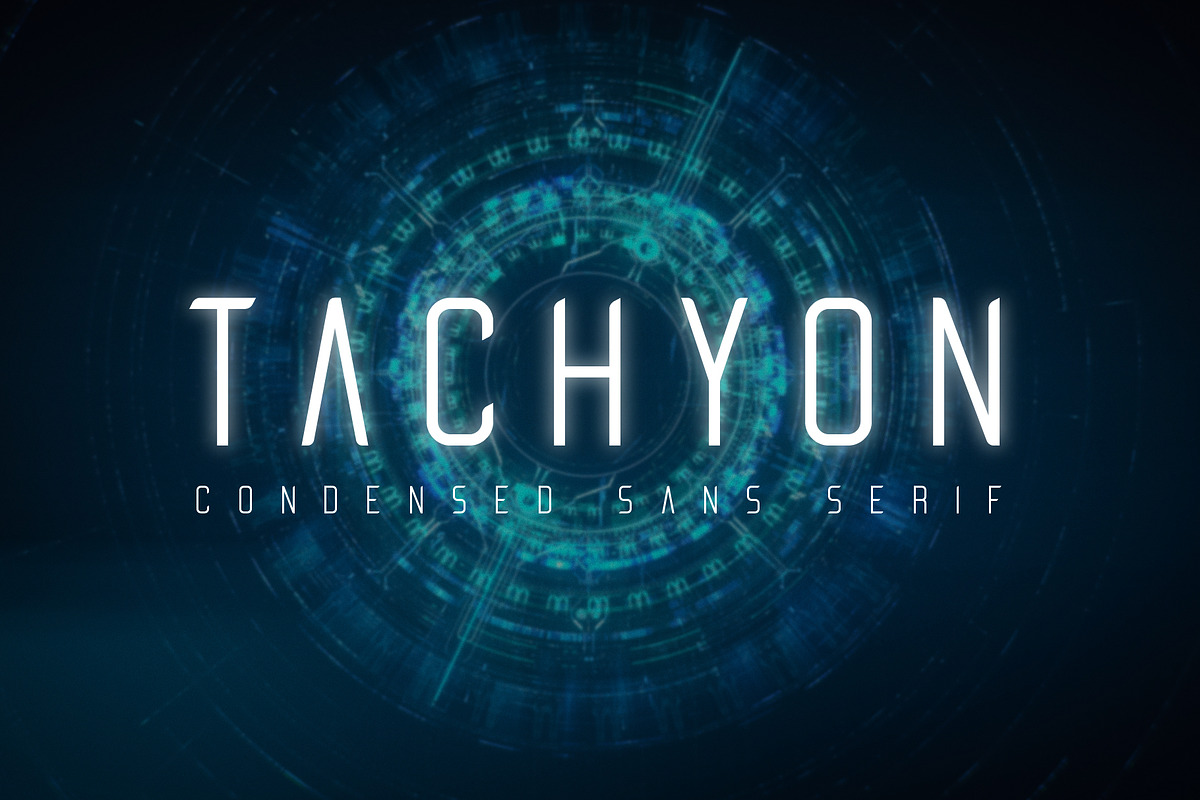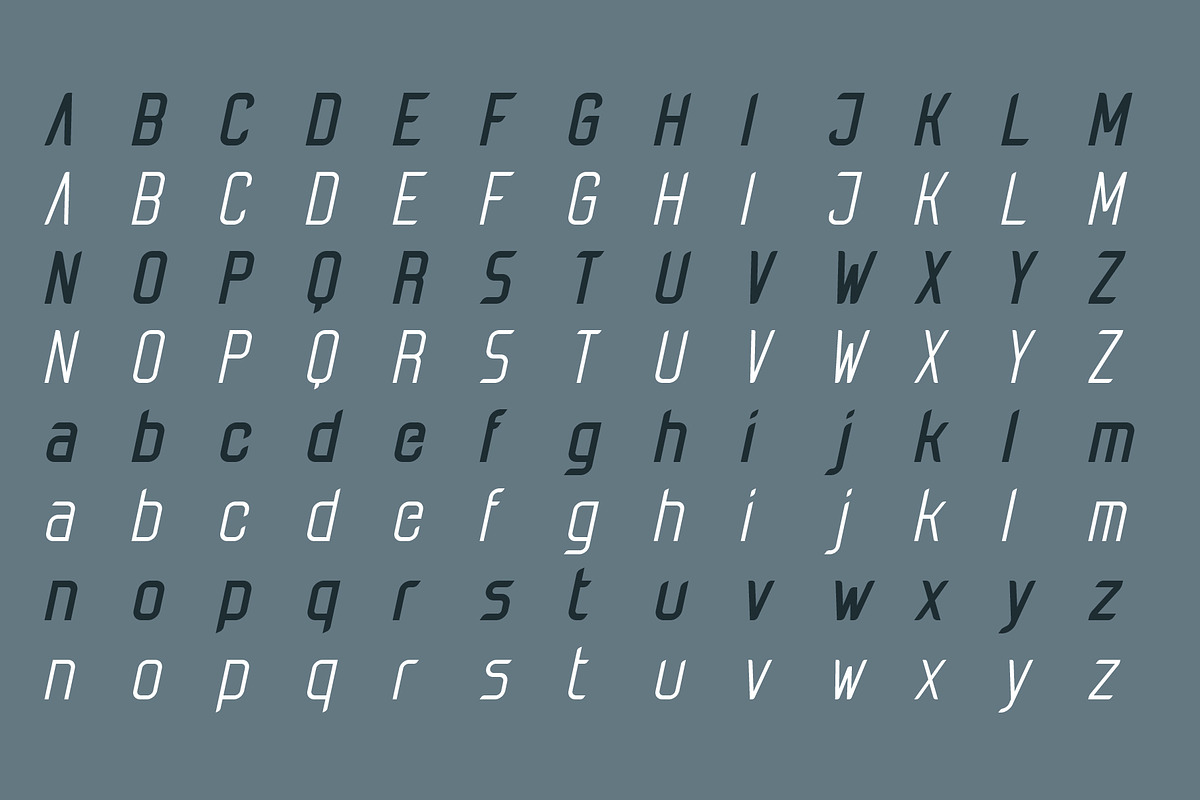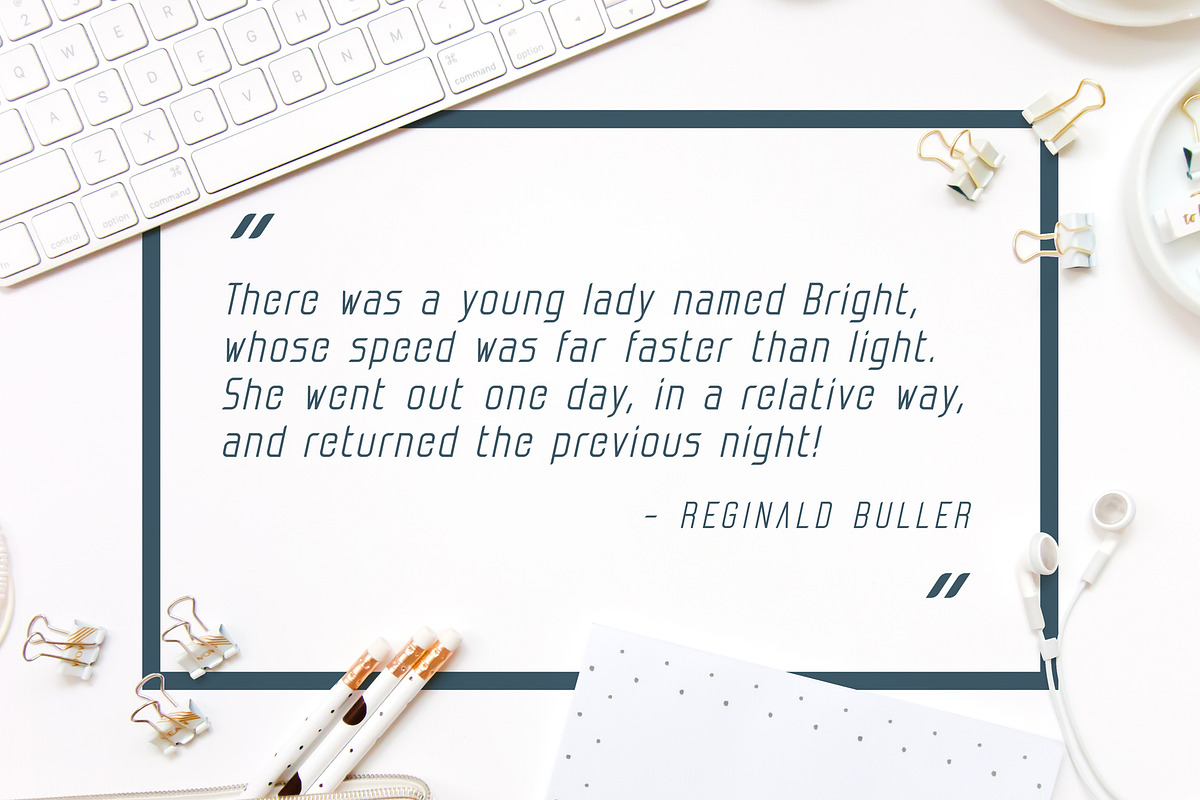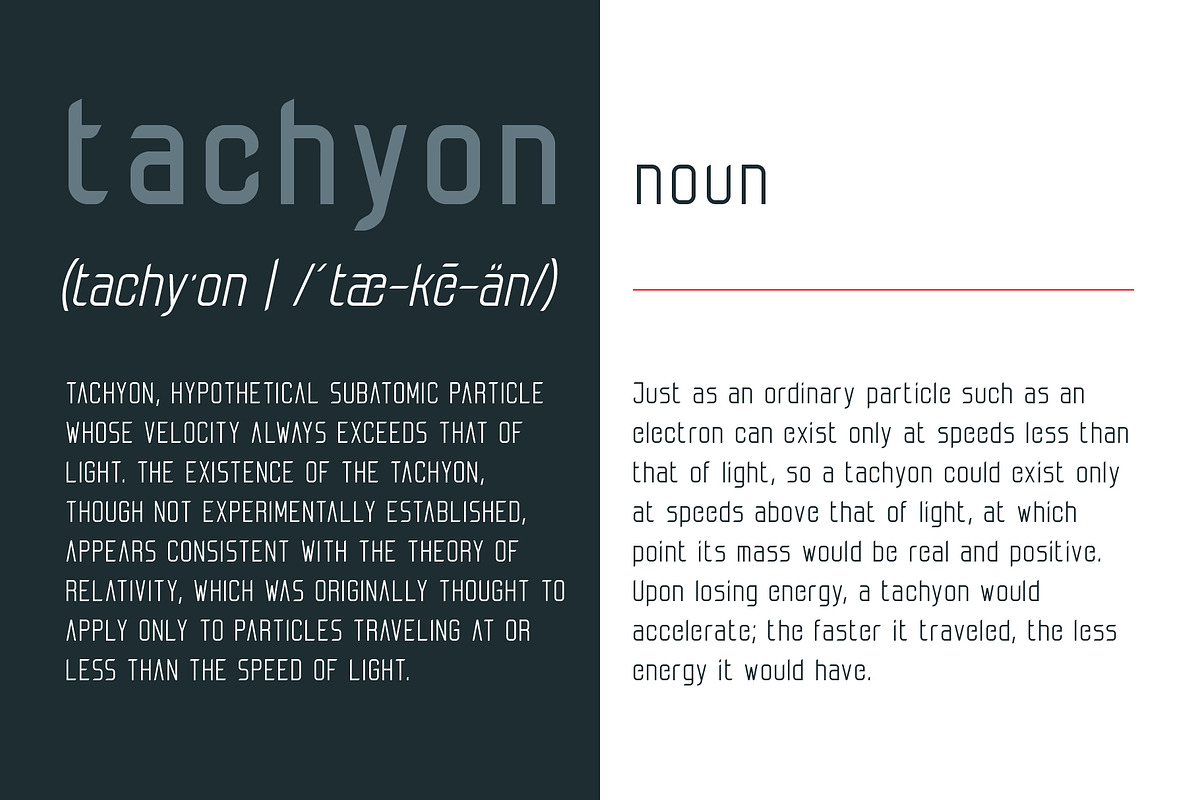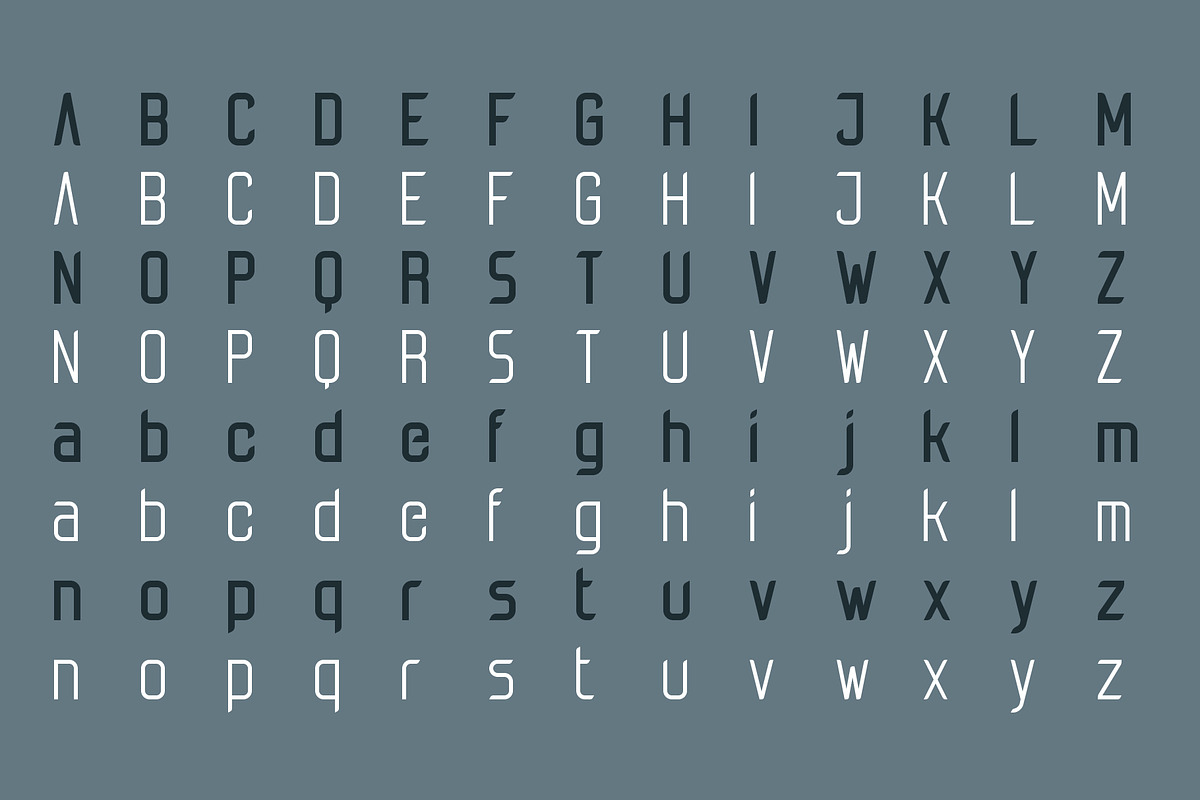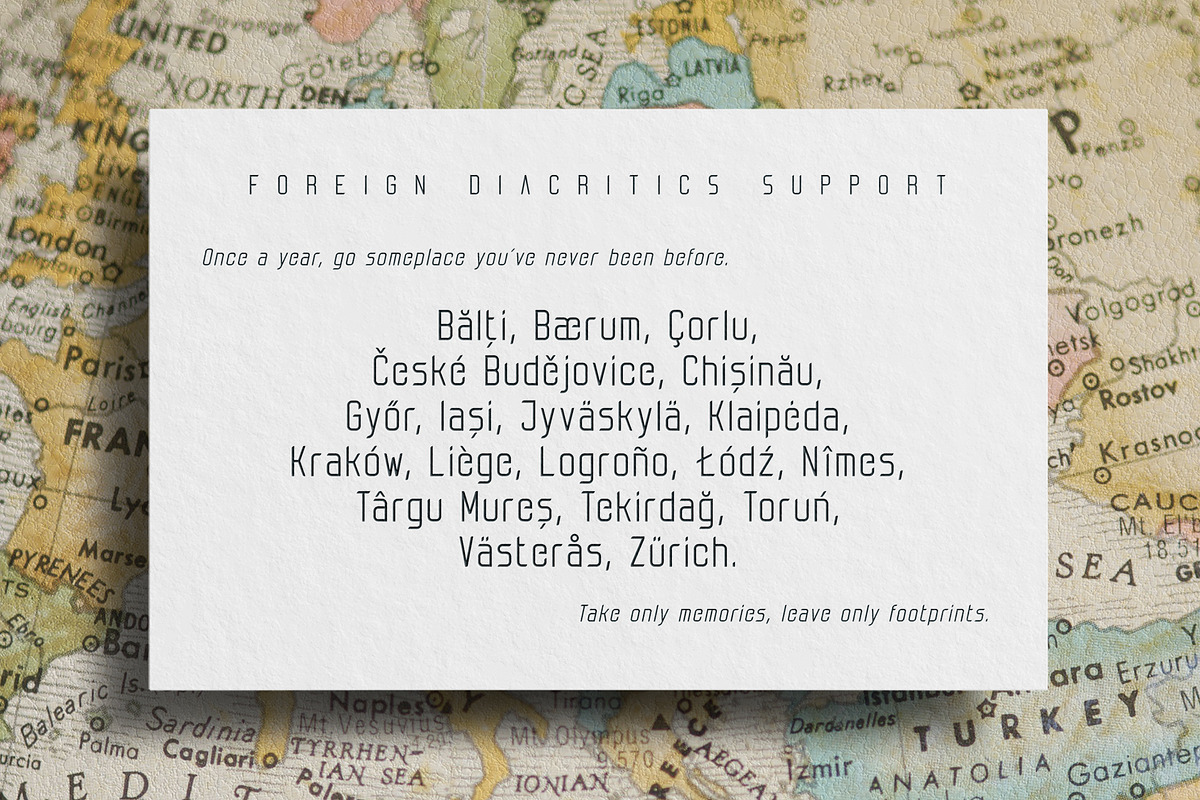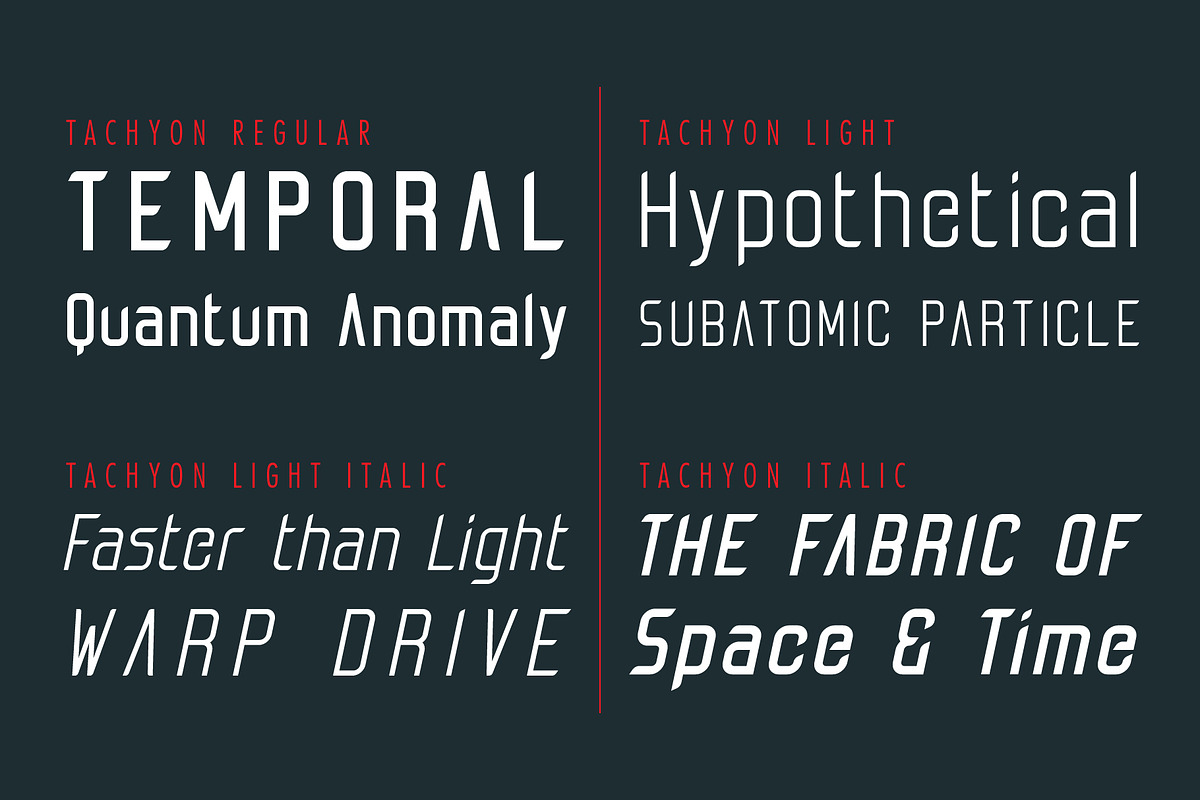
Tachyon Font - Condensed Sans Serif
Tachyon font family combines design simplicity of modern sans serifs with futuristic feel based on condensed character concept. Its clean lines can bring unusual spark to logo designs, headlines, magazine designs, quotes, documentaries, advertisements or similar projects. Font will find its use also in larger text blocks where simplicity, clean lines and well applied kerning is must have. Create something spectacular with Tachyon.
Font variations: Regular, Italic, Light, Light Italic